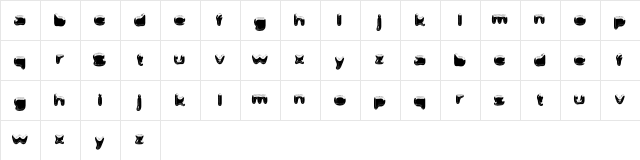
Safe Iodine Regular
Foundry: Billy Argel
Designer: Billy Argel
Design Context for Safe Iodine
Safe Iodine is a composed and adaptable typeface that performs quietly and consistently across a wide range of design contexts.